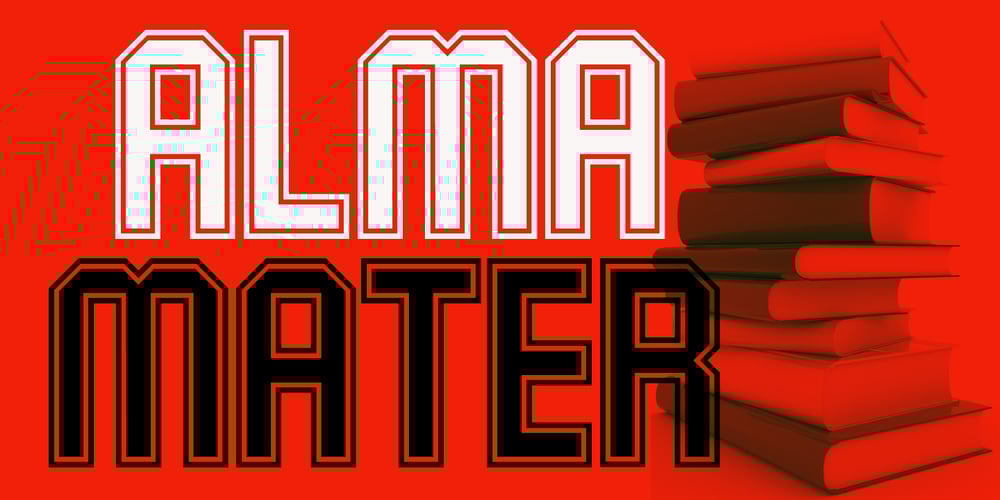
Alma Mater
Alma Mater font
Alma Mater Font Family was designed by Keith Tricker and published by Studio K. Alma Mater contains 5 styles and family package options. As the Latin tag for one’s college or university, Alma Mater seemed to me to be an appropriate title for a font family reminiscent of the lettering commonly used on college sweaters and sports jerseys. Essentially Alma Mater is an extension of my Oscar Bravo font family, but the lively demand for Oscar Bravo Blank persuaded me to go the whole nine yards and and offer inline, outline and shadow variations on the theme. Pick ’em up and run with ’em!